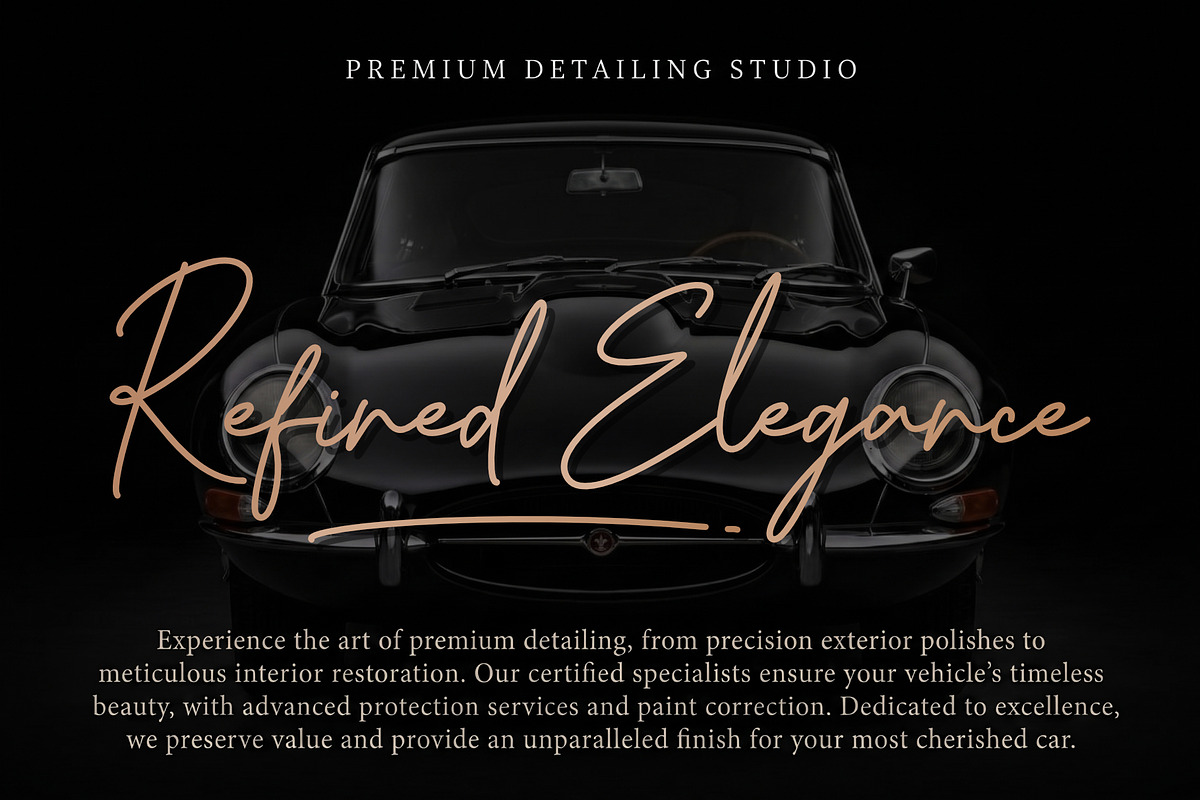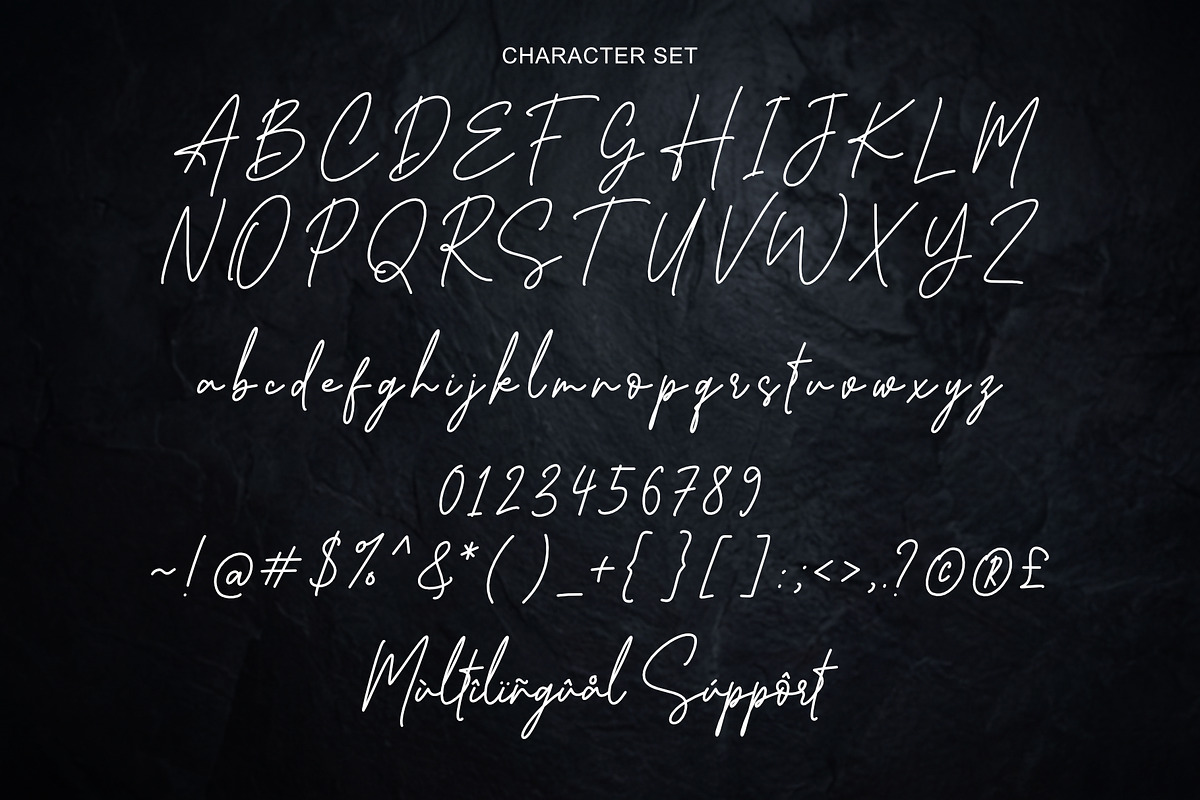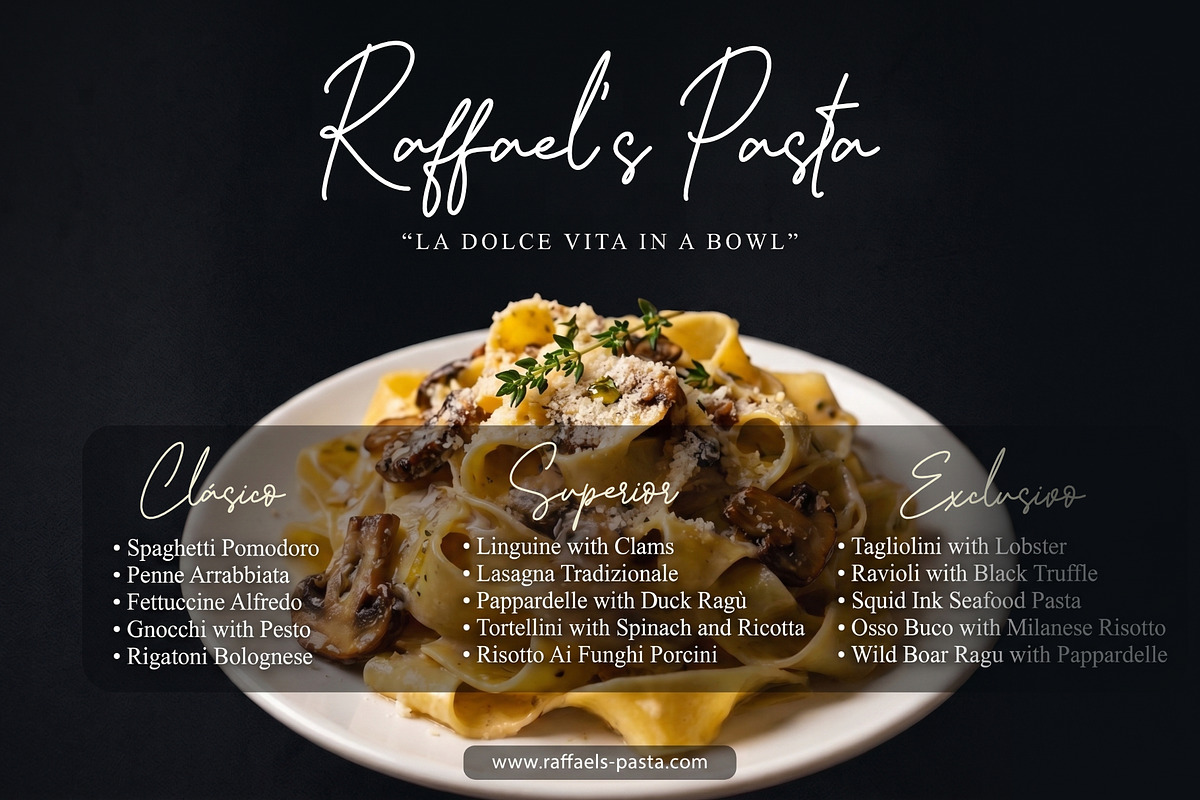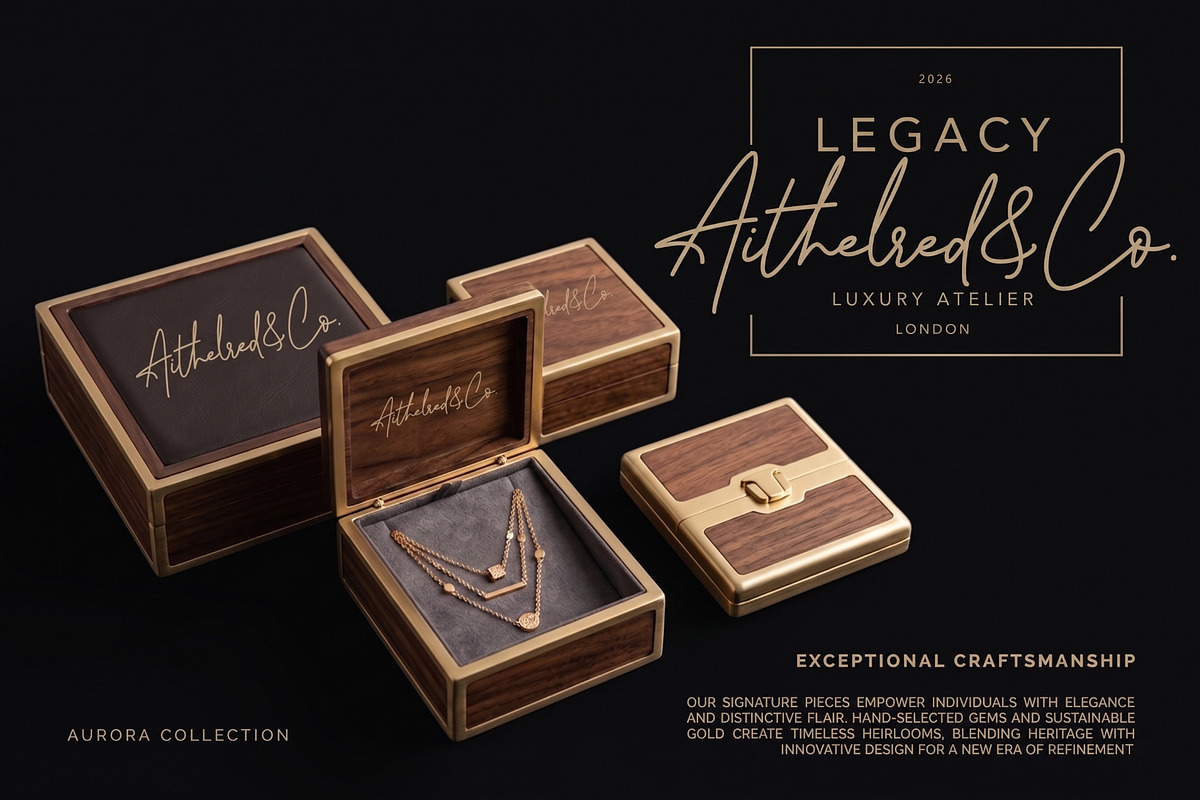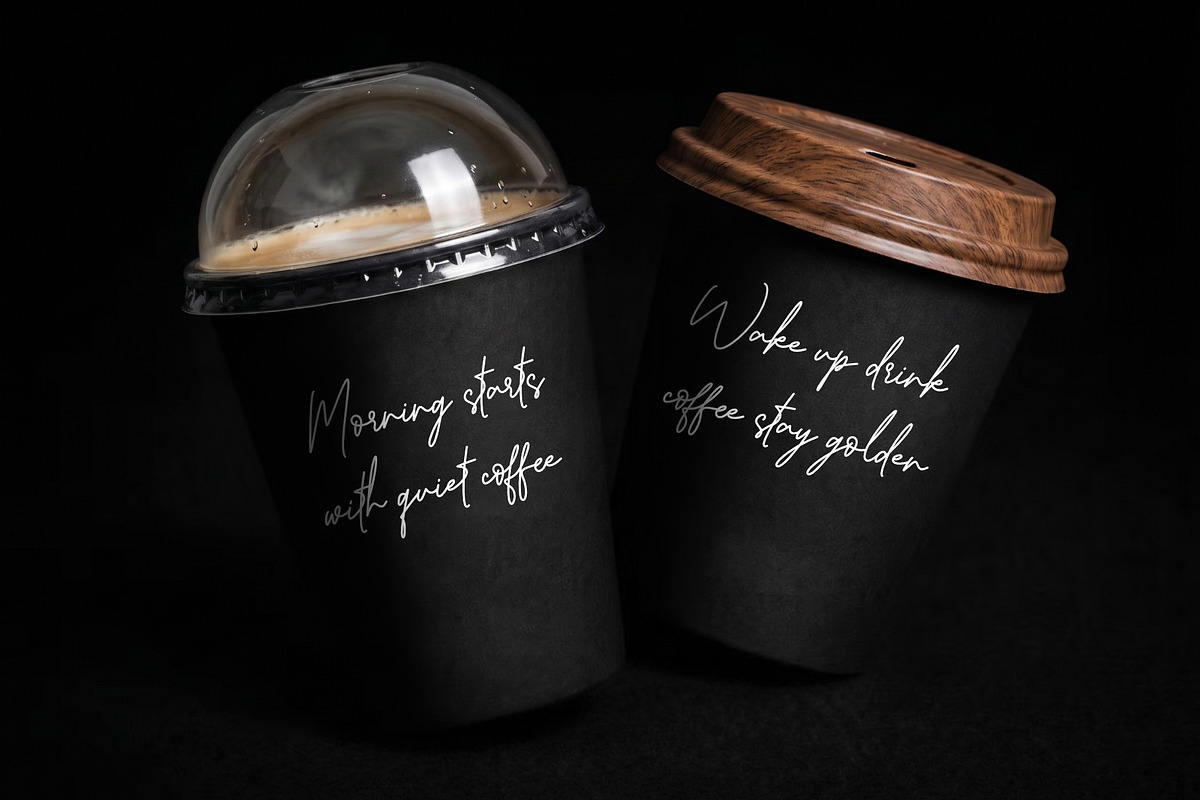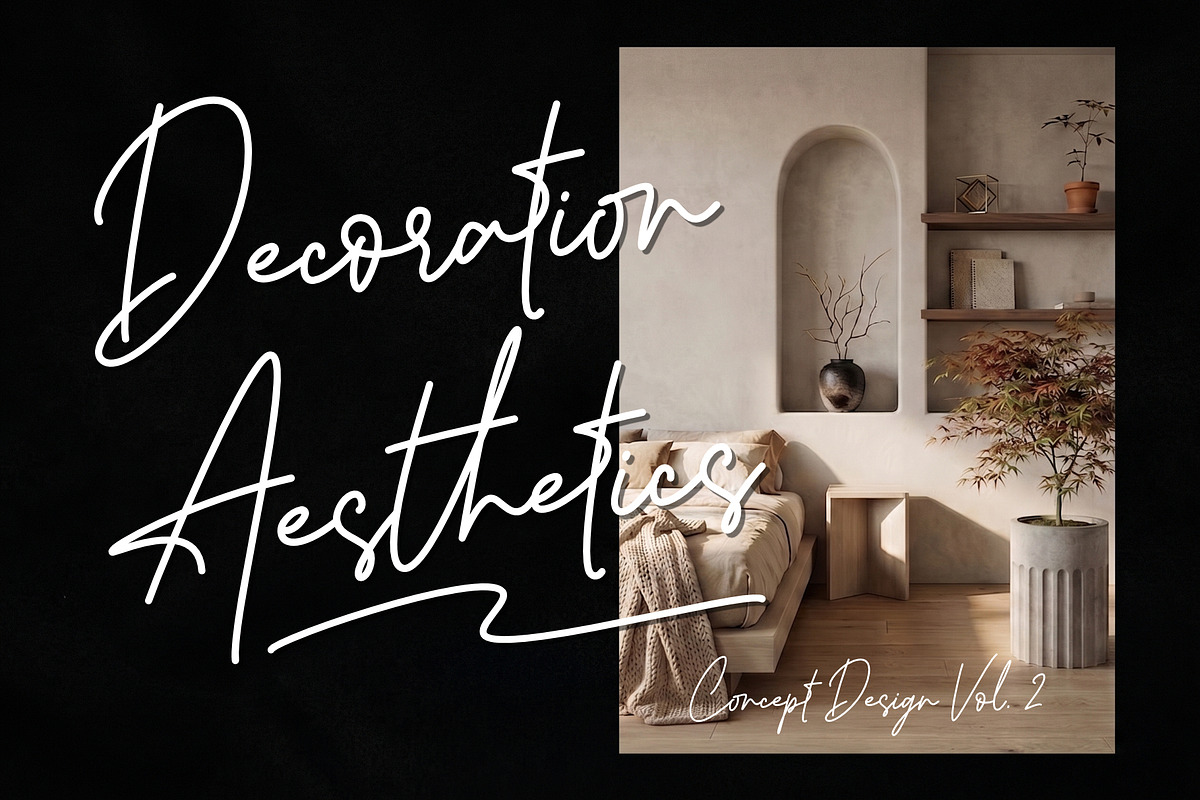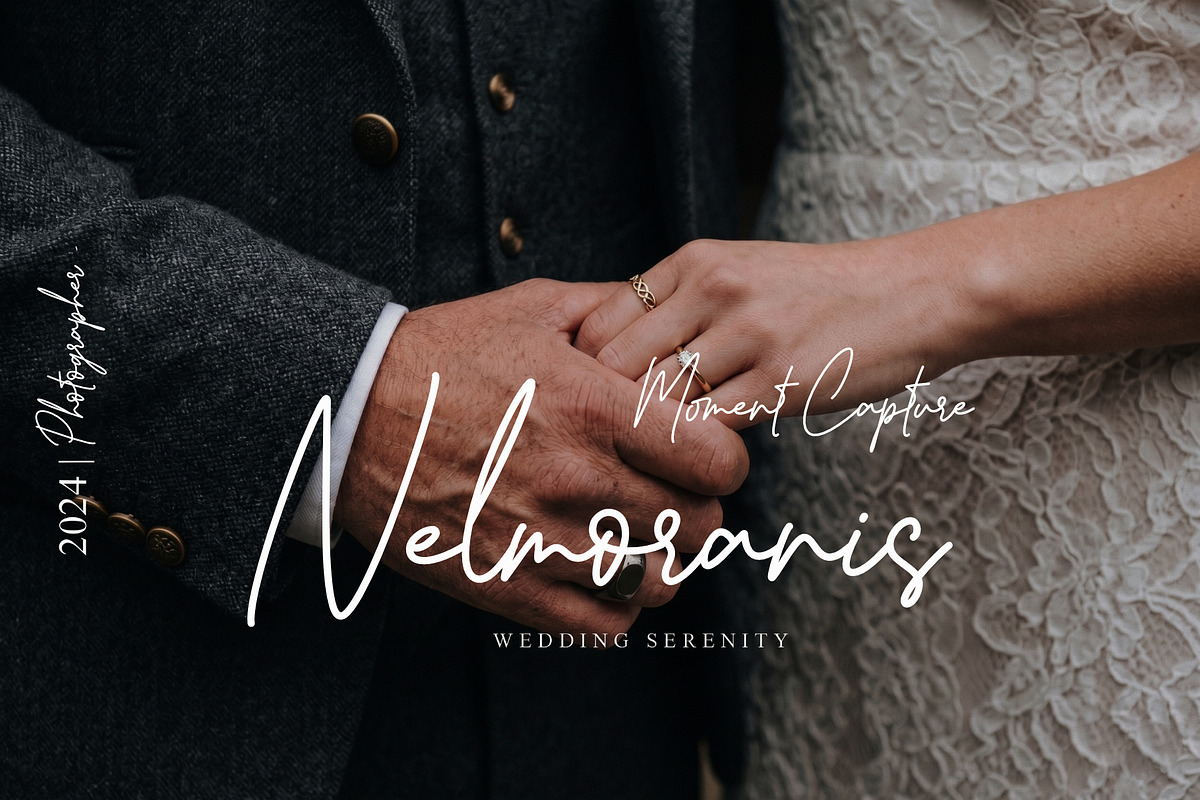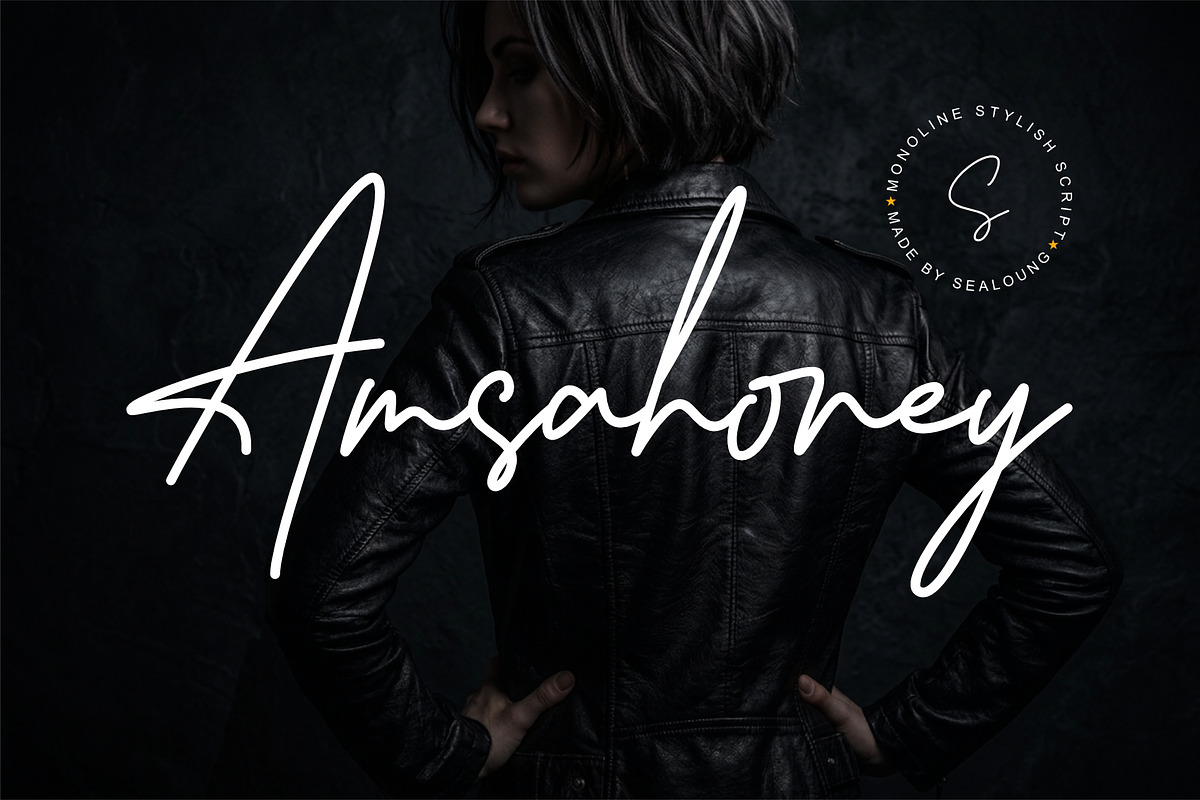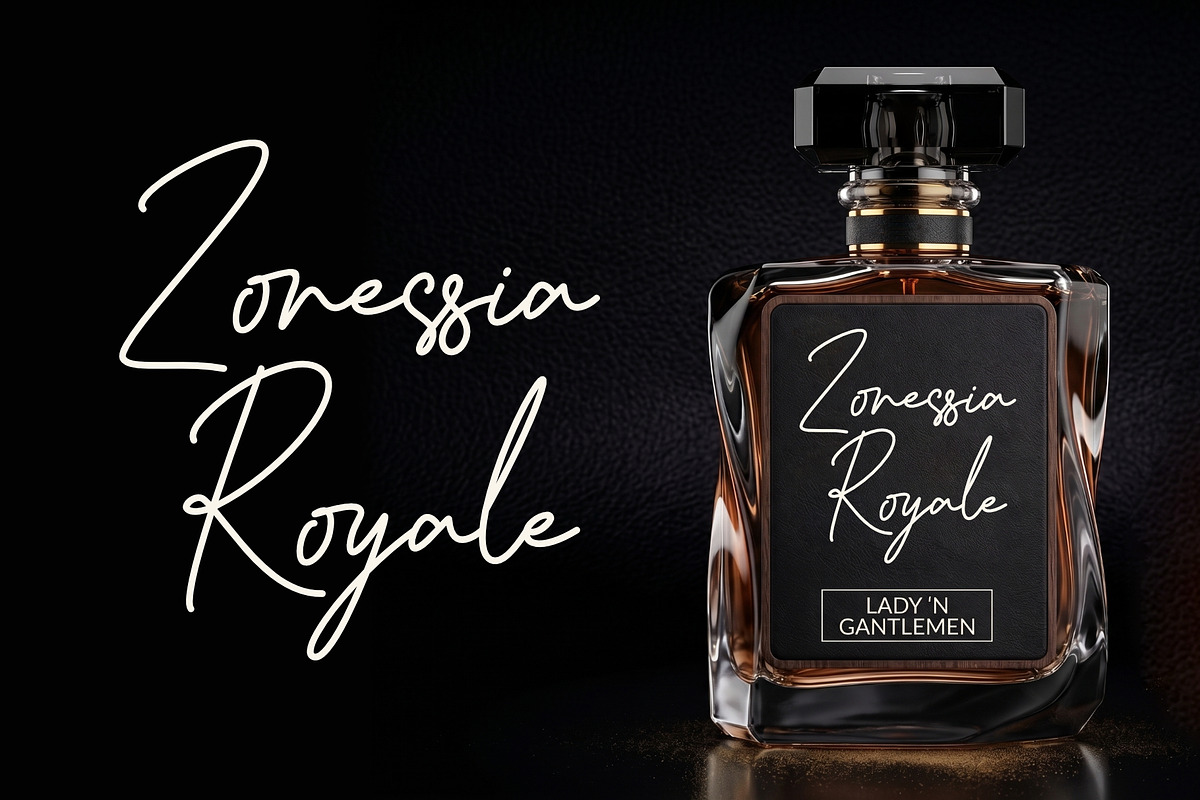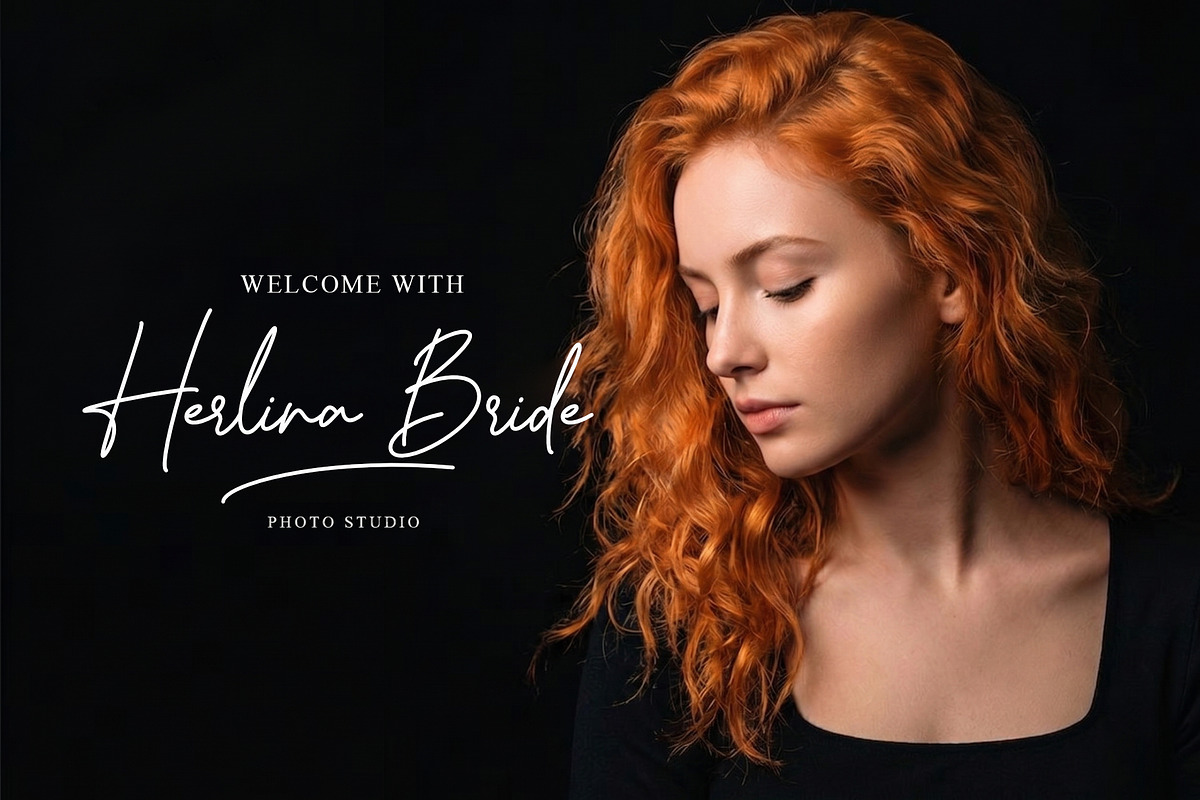
Amsahoney - Monoline Stylish Script
Amsahoney Signature Script is a modern and elegant handwritten font designed with smooth flowing strokes and a natural signature style. Its graceful curves and refined character bring a luxurious, personal, and sophisticated touch to every design.
Amsahoney Signature Script is perfectly suited for branding, logos, wedding invitations, social media content, advertisements, product packaging, labels, photography watermarks, stationery, and any creative project that needs a stylish handwritten feel.
Beautiful Ligatures
Amsahoney Signature Script is the perfect choice for creating elegant, modern, and eye-catching typography with a personal signature touch.